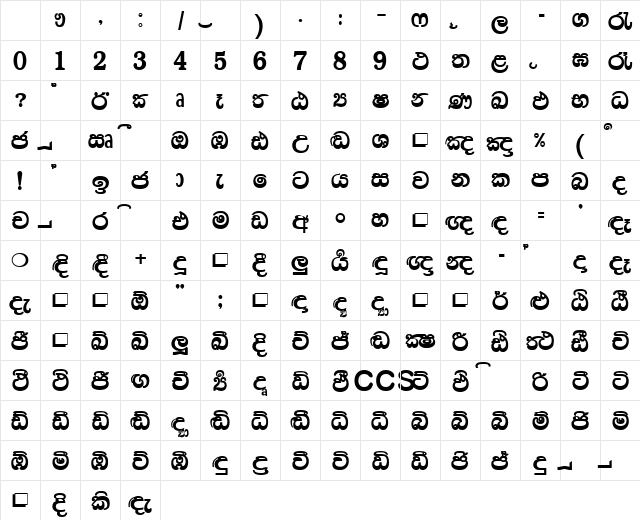
IW Dammee Regular Free Font
IW Dammee Regular
Design Context for IW Dammee
IW Dammee is a composed and adaptable typeface that performs quietly and consistently across a wide range of design contexts.